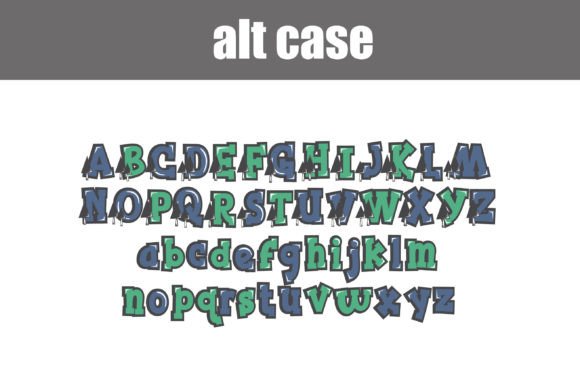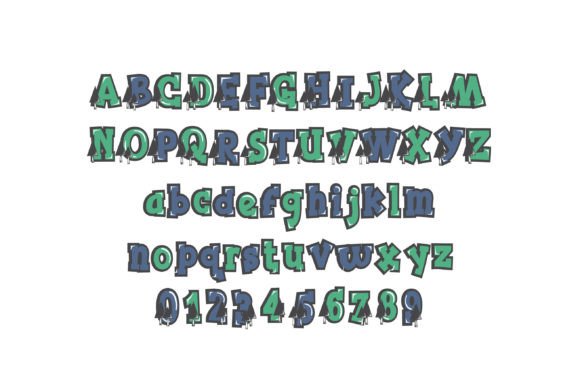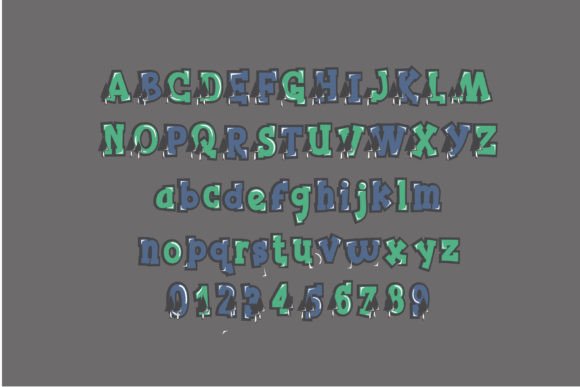
Rustic Campground Font
About the Rustic Campground Font
Elevate your designs with Rustic Campground Font, a font that combines sophistication with readability. This full-color font features a blocky, serif font with pine trees on the uppercase. There is an alt case w/ additional colors you can access through your system or Silhouette’s glyph map. This font works best for titles, displays, posters and more. Please note color fonts will show as black in non compatible programs. This font type is compatible with Silhouette Studio.